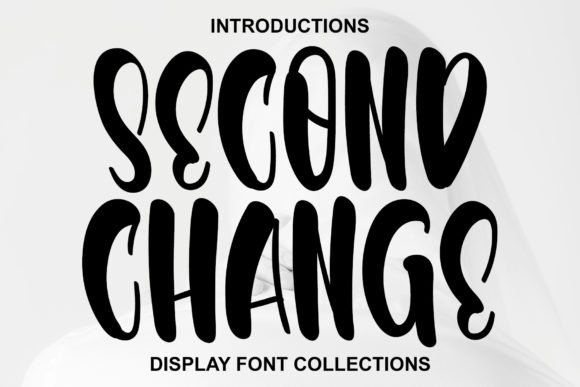
Discover the Elegance of Second Chance Font: Elevate Your Designs with this Stunning Display Font
In the realm of typography, fonts play a pivotal role in conveying messages, evoking emotions, and creating lasting impressions. Among the myriad of fonts available, the Second Chance font stands out as a beautiful display font perfect for magazines, crafts, and various design projects. In this comprehensive article, we’ll delve into the world of Second Chance font, exploring its features, benefits, and applications, as well as provide insights on how to make the most of this elegant typeface.
What is Second Chance Font?
Second Chance font is a meticulously crafted display font designed to add a touch of sophistication and elegance to any design project. Its unique blend of classic and modern elements makes it an ideal choice for a wide range of applications, from magazine headlines and titles to craft projects and digital designs.
This beautiful font boasts a distinctive character set, featuring intricate details and subtle nuances that set it apart from more conventional fonts. Whether you’re looking to create eye-catching magazine spreads, stunning craft projects, or captivating digital content, Second Chance font is sure to make a lasting impression.
The Benefits of Using Second Chance Font
So, what makes Second Chance font an attractive choice for designers and crafters? Here are just a few benefits of incorporating this stunning display font into your projects:
- Elegance and Sophistication: Second Chance font exudes elegance and sophistication, making it perfect for high-end designs, luxury brands, and upscale publications.
- Versatility: This versatile font can be used in a variety of contexts, from magazine headlines and titles to craft projects, digital designs, and more.
- Unique Character Set: Second Chance font features a distinctive character set that sets it apart from more traditional fonts, ensuring your designs stand out from the crowd.
- Ease of Use: With its clean and intuitive design, Second Chance font is easy to read and work with, making it a joy to use for designers and crafters of all skill levels.
Crafting Spectacular Designs with Second Chance Font
So, how can you use Second Chance font to create spectacular designs? Here are a few ideas to get you started:
- Magazine Headlines and Titles: Use Second Chance font to create eye-catching headlines and titles that grab attention and draw readers in.
- Craft Projects: Add a touch of elegance and sophistication to your craft projects, from scrapbooking and card-making to DIY home decor and more.
- Digital Designs: Use Second Chance font to create stunning digital designs, from social media graphics and blog posts to website headers and more.
- Branding and Packaging: Incorporate Second Chance font into your branding and packaging designs to create a cohesive and sophisticated visual identity.
Tips for Working with Second Chance Font
To get the most out of Second Chance font, here are a few tips to keep in mind:
- Experiment with Font Sizes and Styles: Don’t be afraid to experiment with different font sizes and styles to find the perfect combination for your design.
- Pair with Complementary Fonts: Pair Second Chance font with complementary fonts to create visual interest and add depth to your designs.
- Use High-Quality Images and Graphics: Use high-quality images and graphics to enhance your designs and make the most of Second Chance font.
- Keep it Simple and Elegant: Remember, sometimes less is more. Keep your designs simple and elegant to let Second Chance font shine.
In conclusion, Second Chance font is a beautiful display font perfect for magazines, crafts, and various design projects. With its elegant and sophisticated design, versatile character set, and ease of use, this stunning font is sure to elevate your designs and make a lasting impression. By following the tips and guidelines outlined in this article, you’ll be well on your way to creating spectacular designs with Second Chance font.